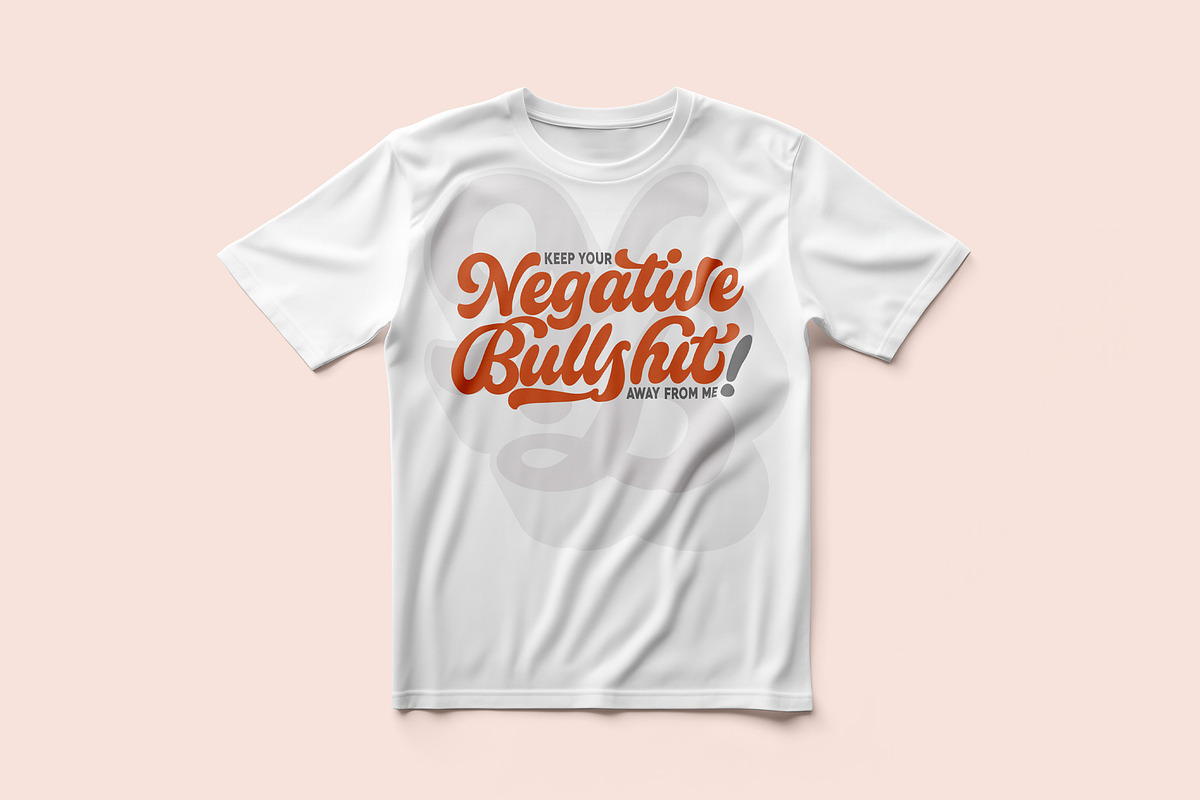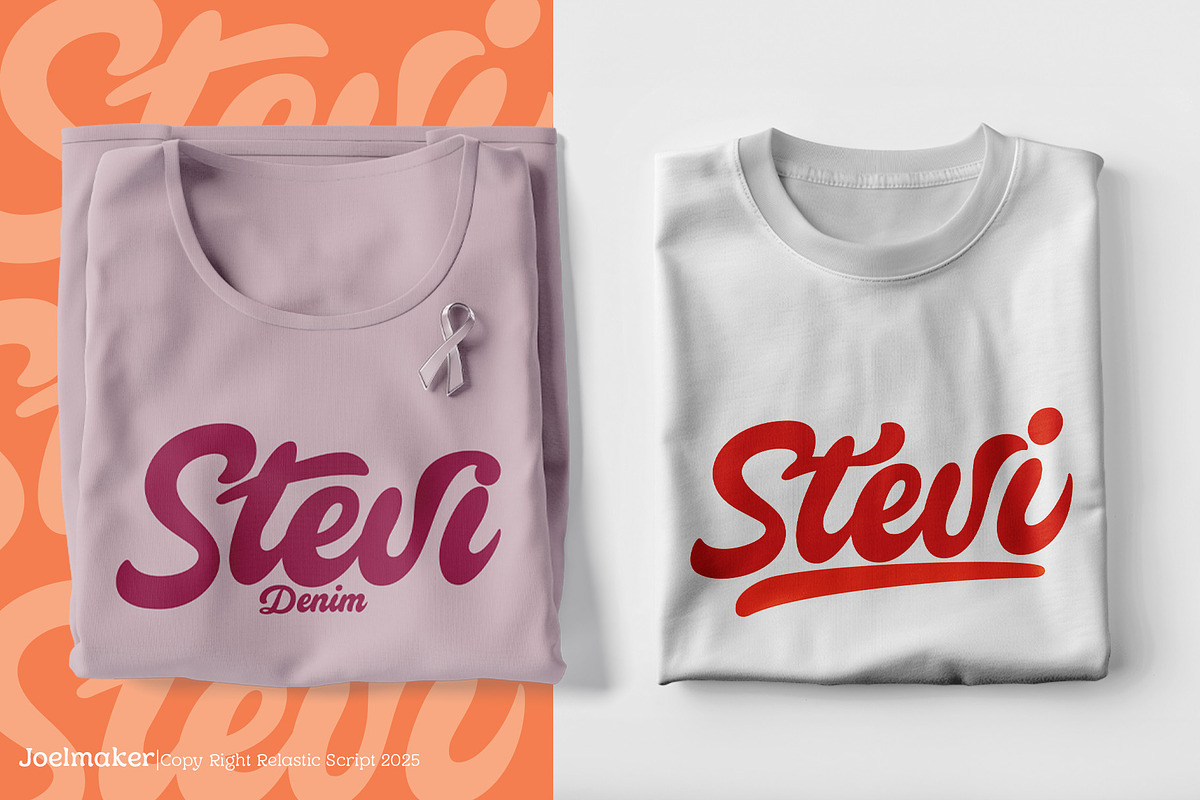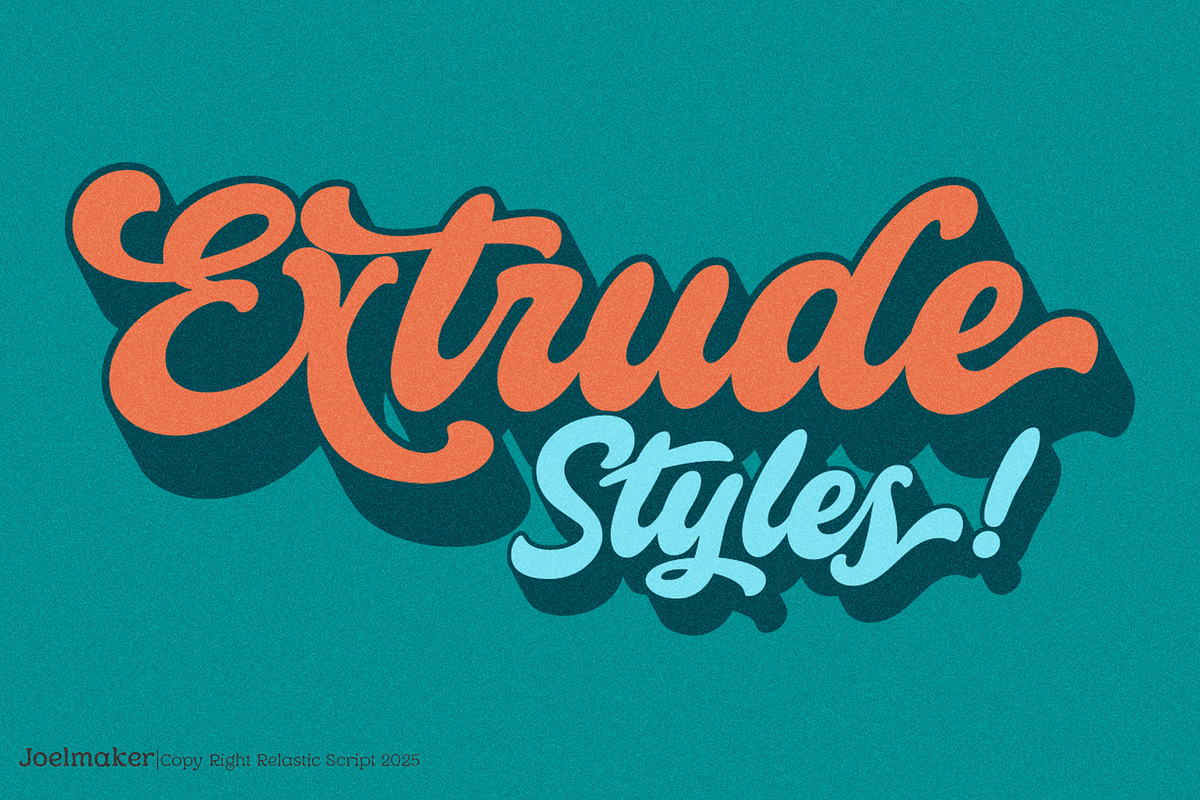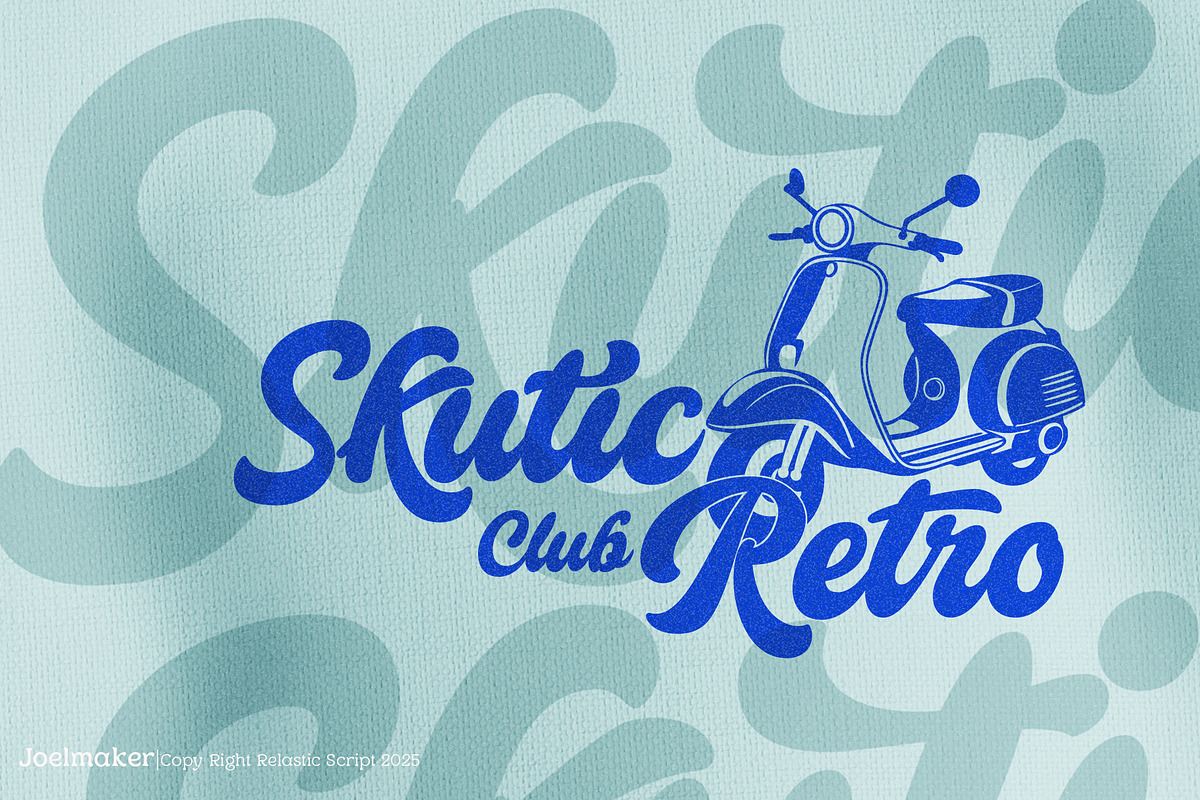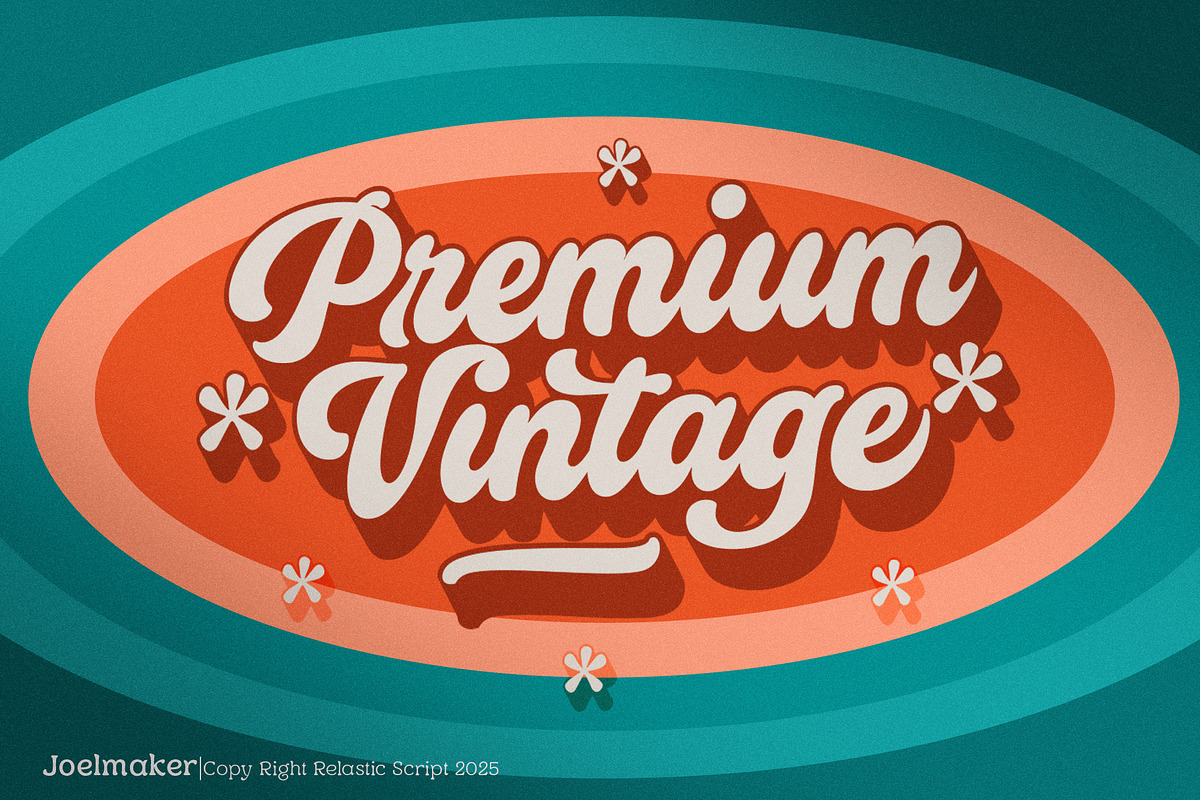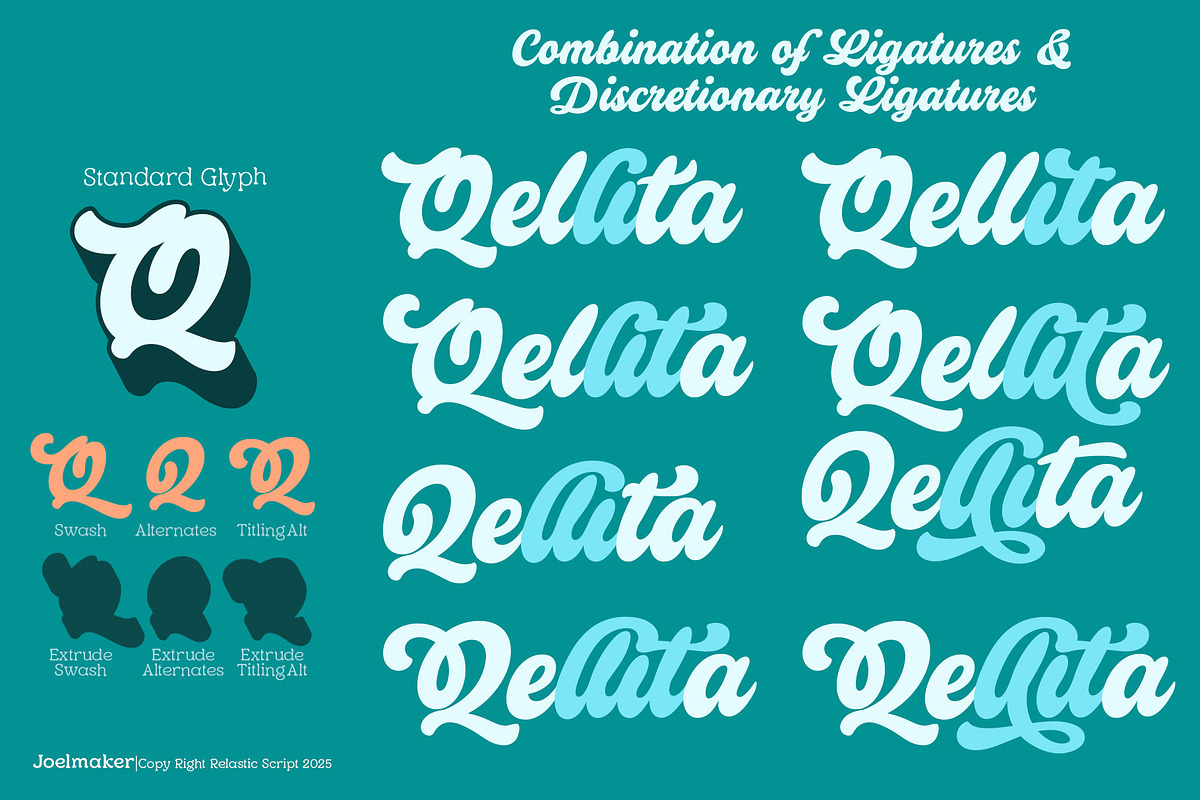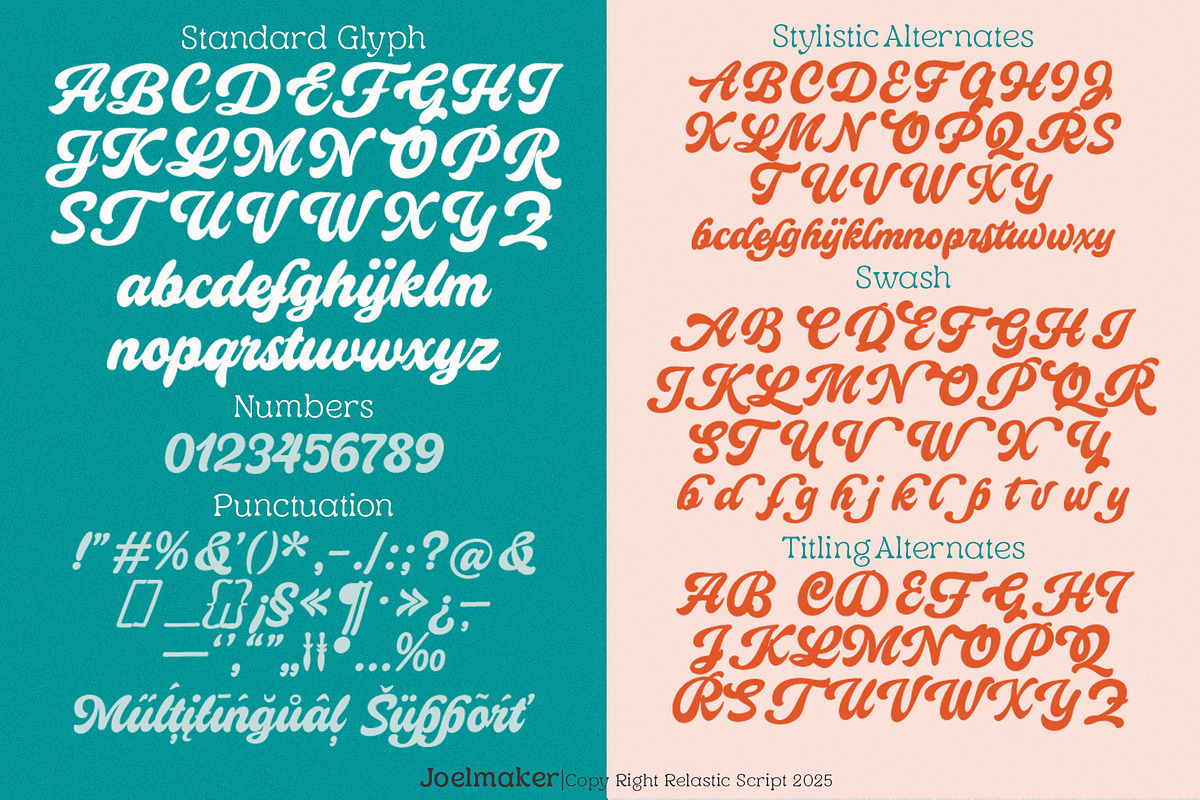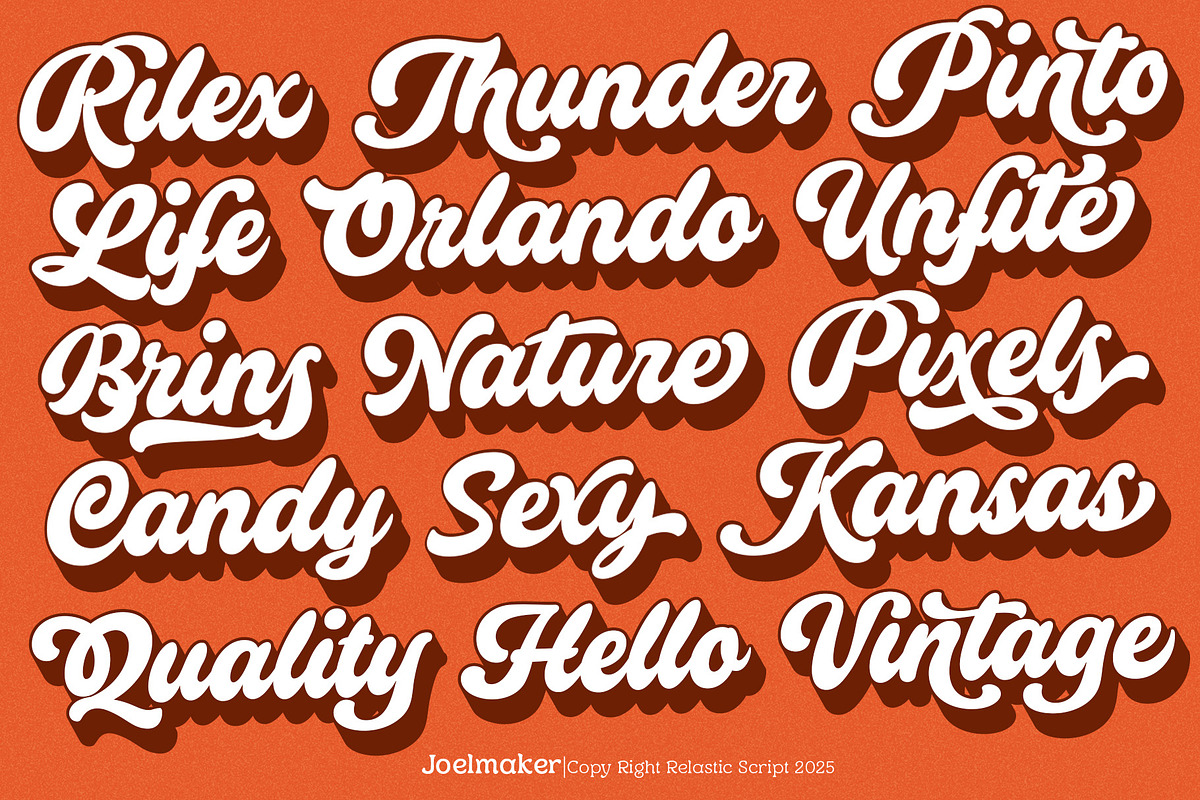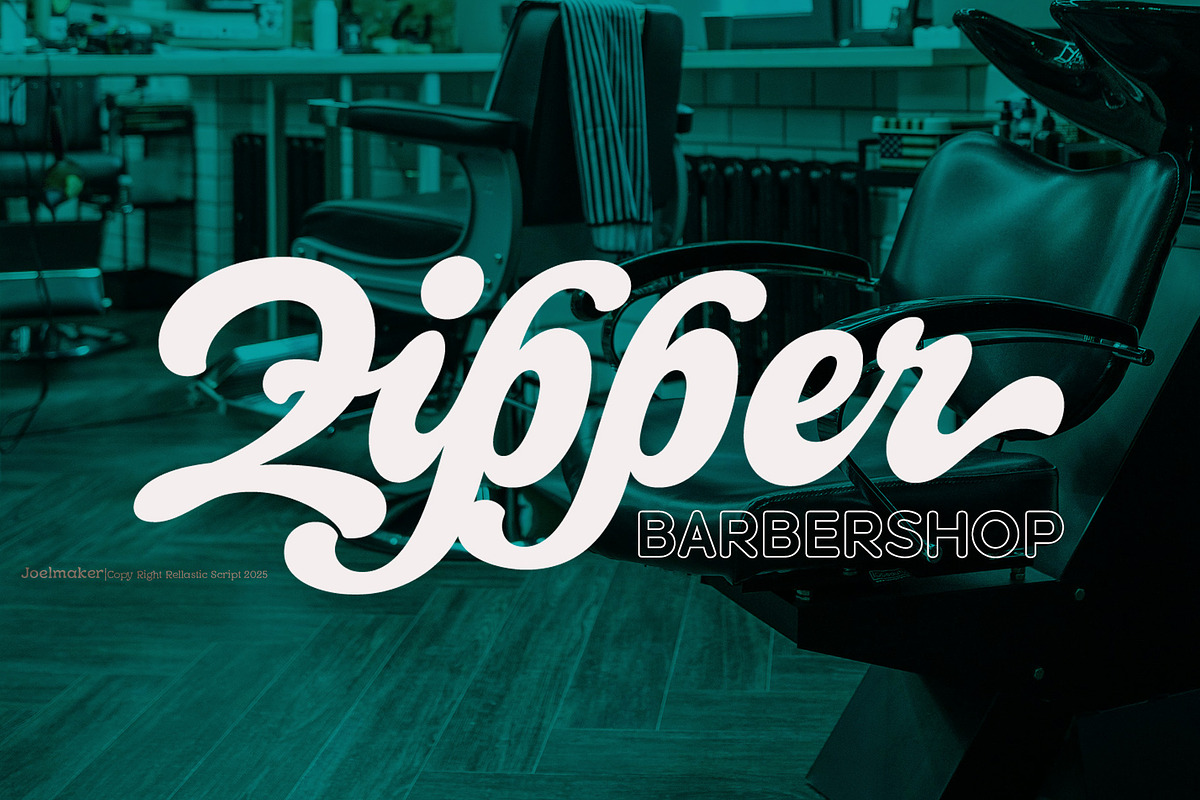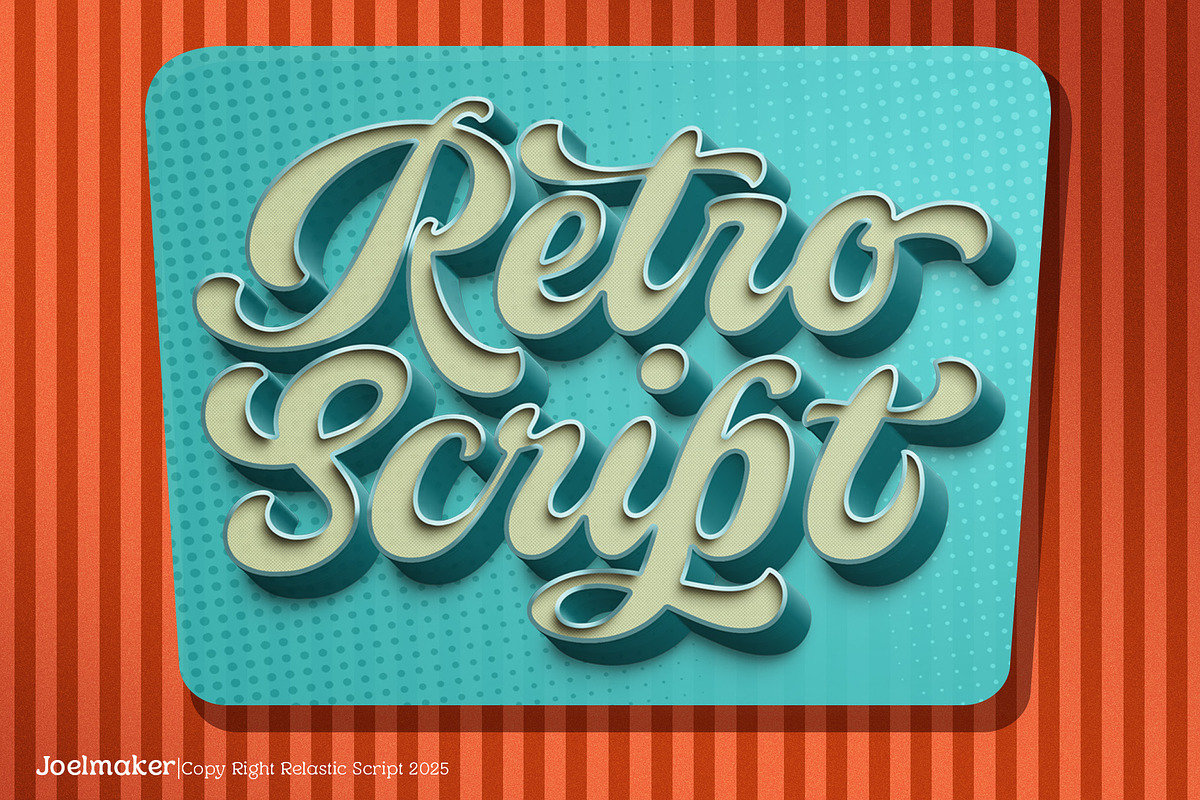
Relastic Script
Relastic Script and Relastic Extrude are two complementary typefaces designed to elevate modern branding and digital design projects. Together, they offer a dynamic fusion of elegance and boldness, enhanced by unique ligatures and discretionary ligatures that add a touch of personality to any composition.
Relastic Script is a refined handwritten script font characterized by its flowing curves and high contrast strokes. Its design exudes sophistication, making it ideal for projects that require a personal yet polished touch, such as wedding invitations, luxury branding, and editorial layouts. The font includes a comprehensive set of ligatures and stylistic alternates, allowing for seamless letter connections and a more cohesive appearance.
Relastic Extrude, on the other hand, introduces a bold, three-dimensional effect to the design. This extruded style adds depth and emphasis, making it perfect for headlines, logos, and posters that aim to capture attention. The geometric, angular design with consistent stroke widths ensures a strong visual impact, while the extruded effect gives the text a modern, dynamic feel.
When combined, Relastic Script and Relastic Extrude create a harmonious contrast between elegance and strength. The flowing script pairs beautifully with the bold extruded letters, allowing designers to craft compositions that are both stylish and impactful. The inclusion of unique ligatures and discretionary ligatures further enhances the versatility of these fonts, enabling designers to customize and refine their typography to suit various design needs.
Furthermore, this typeface showcases a diverse range of letters and supports multilingual characters, making it accessible for global usage. The large set of stylistic alternates allows users to create unique variations of letters to enhance the individuality of their designs. For example, letters like "R," "L," and "P" can be customized to feature subtle differences that add more personality to the text.
Whether used individually or together, Relastic Script and Relastic Extrude offer a comprehensive typographic solution for contemporary design projects. Their unique features and complementary styles make them invaluable tools for designers seeking to create memorable and visually striking compositions.